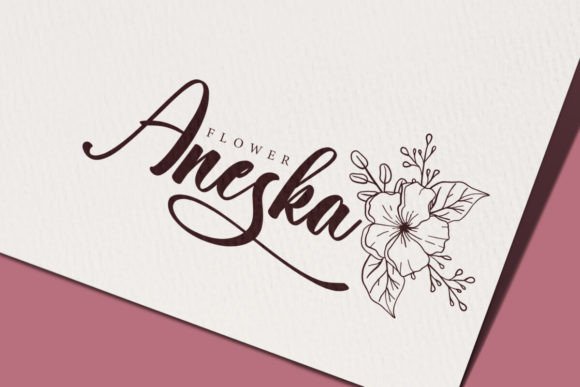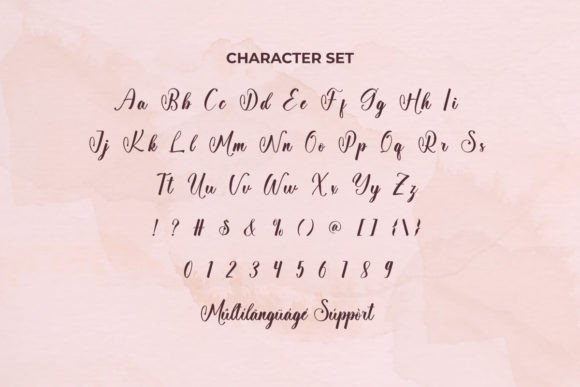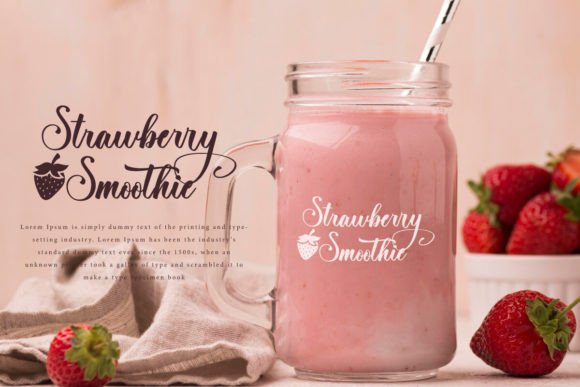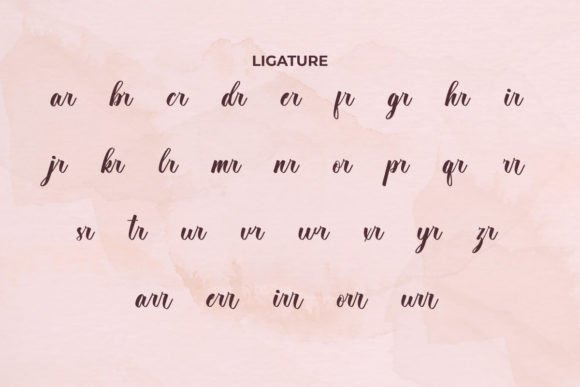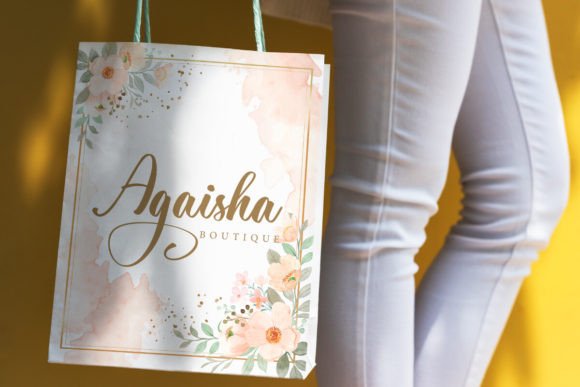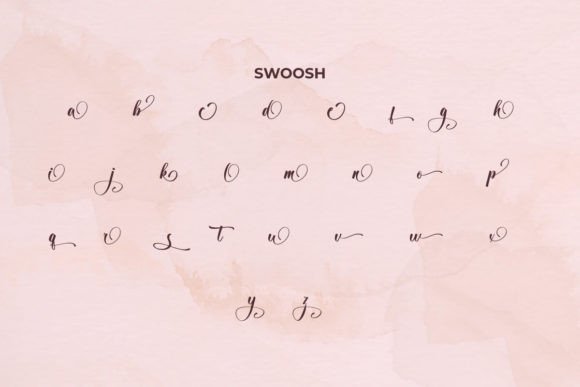
Introduction to Newsbreak Font
Newsbreak Font is a classy script font with a stunning calligraphic style created by CalligraphyFonts.
This typography is based on the beauty of the flowers that represent every bend in the corner of the letters and is suitable for any industry, such as author, boutique, event organizer, florist, furniture, handicrafts, healthy drink, printing, publishing, restaurant, shoes, skincare, spa salon, and much more Newsbreak Font is the right choice to be used as the main text or to be paired with other font types.